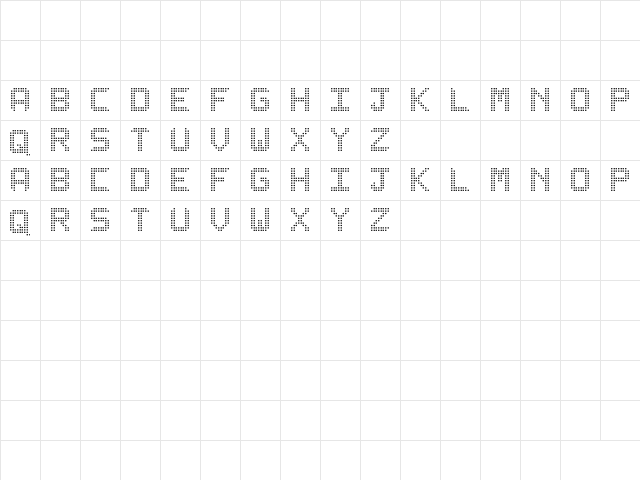
LediZ St Regular
Design Context for LediZ St Typeface
LediZ St takes a measured approach to typography — its balanced proportions and neutral character make it a reliable workhorse for both digital and print work.